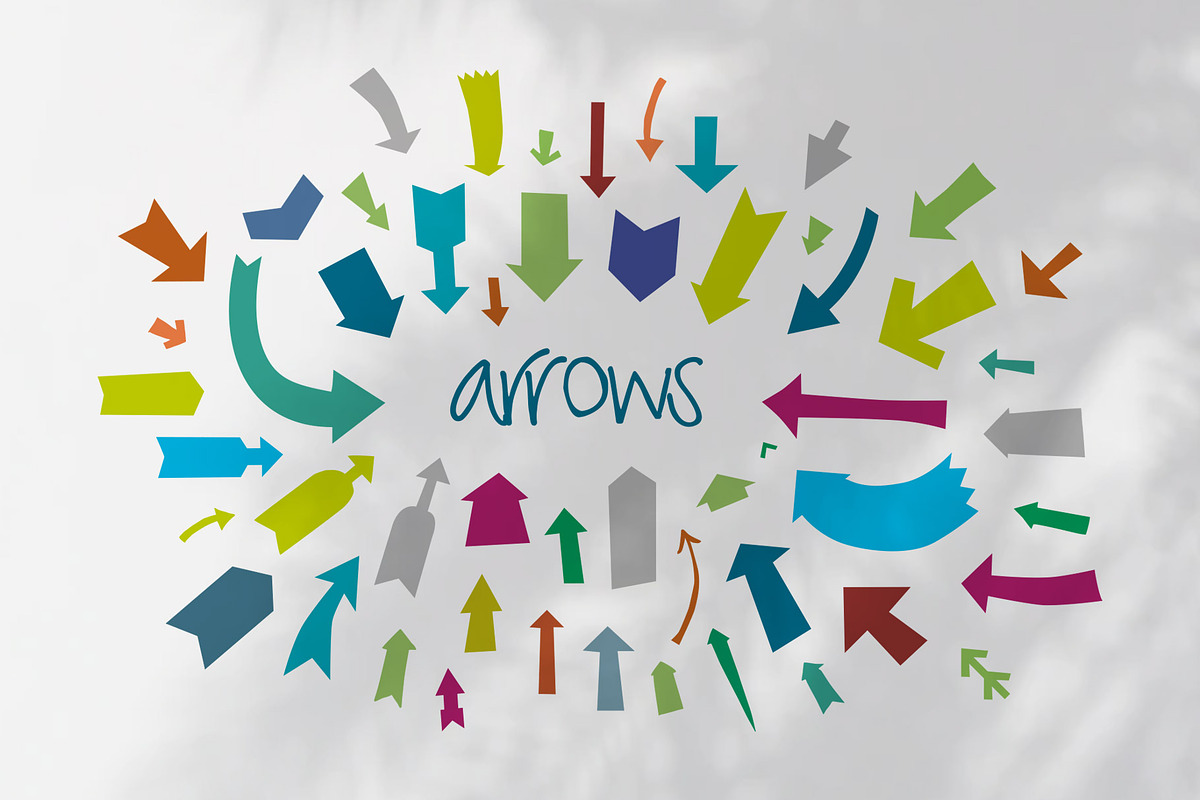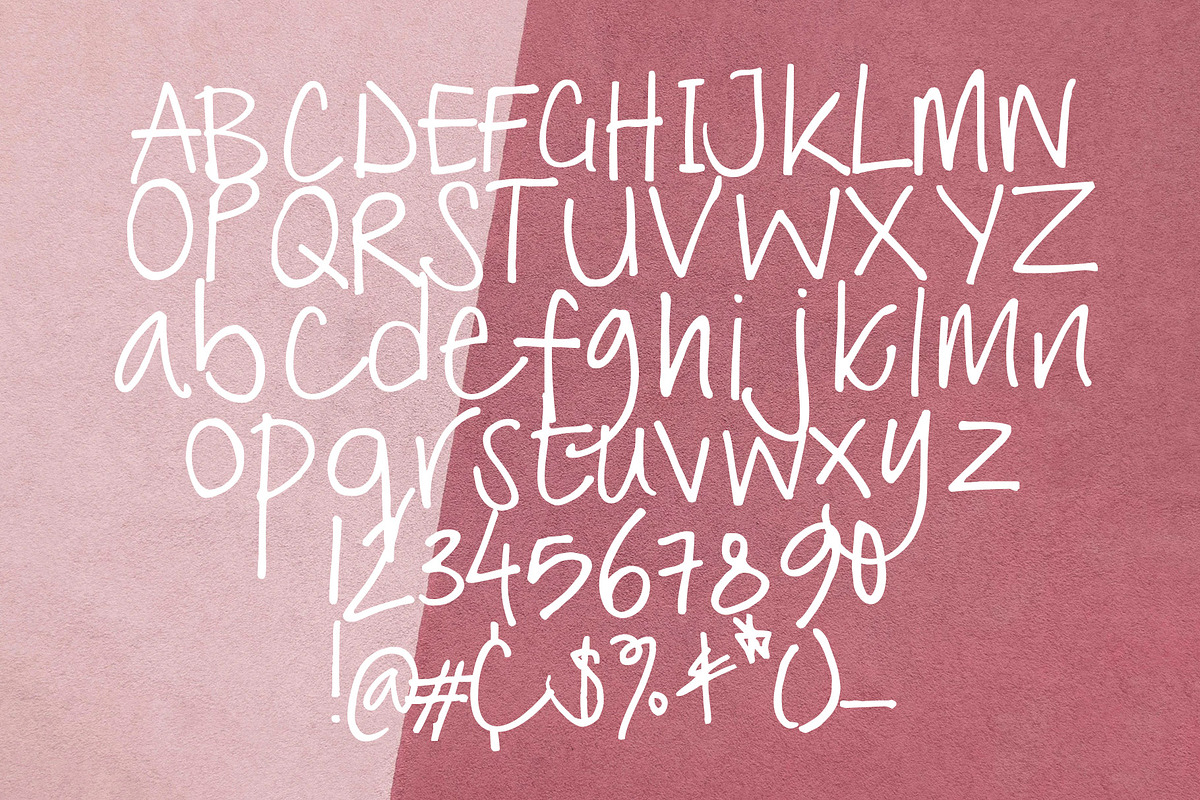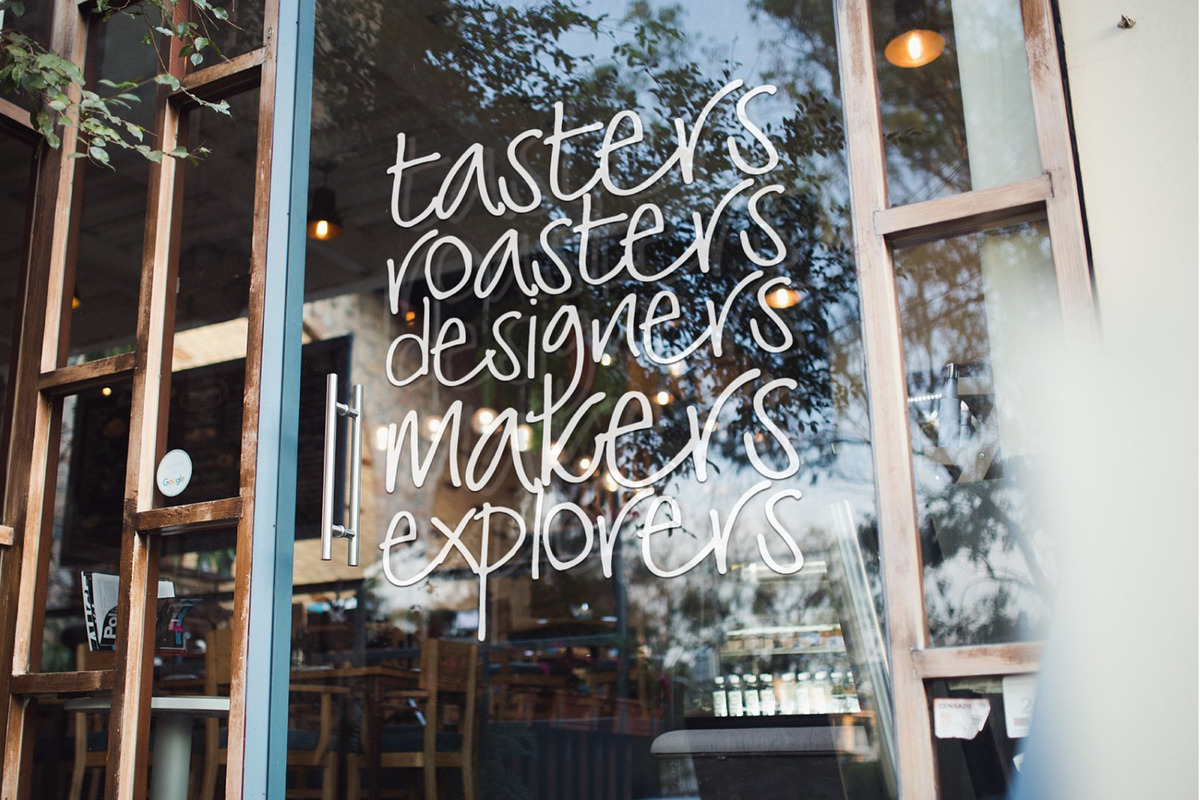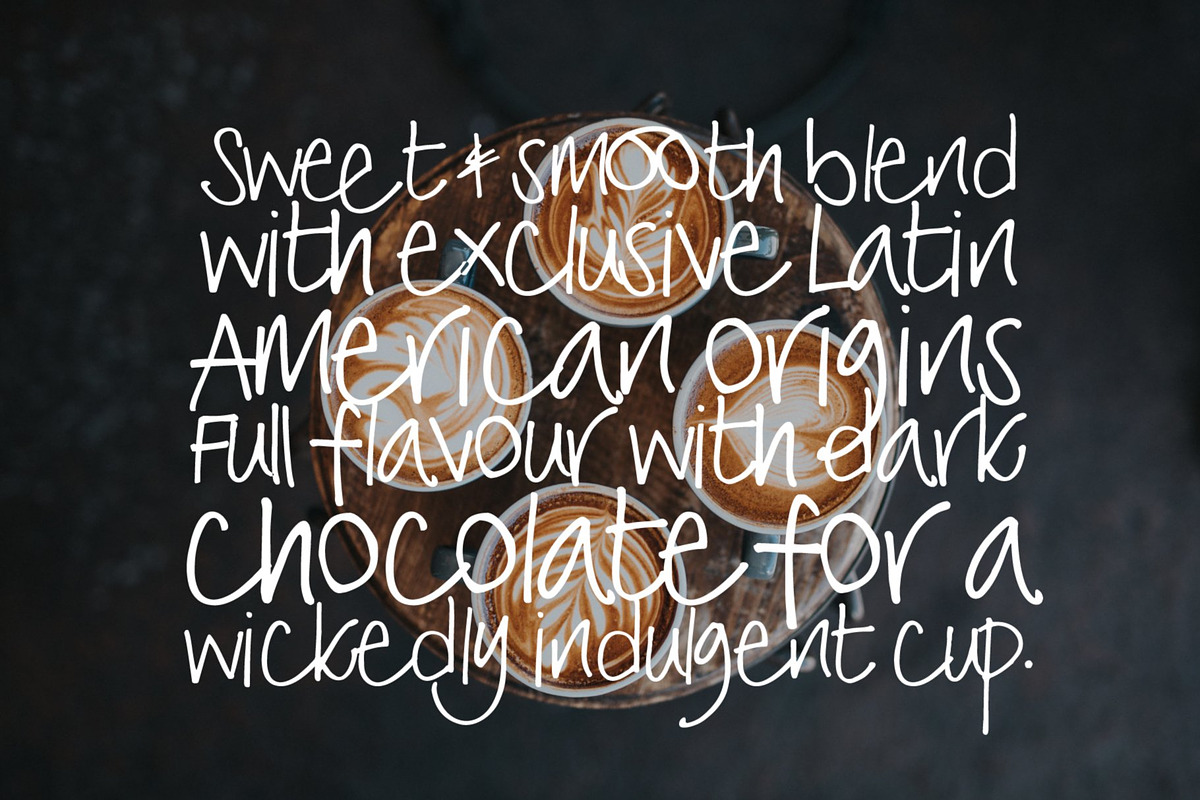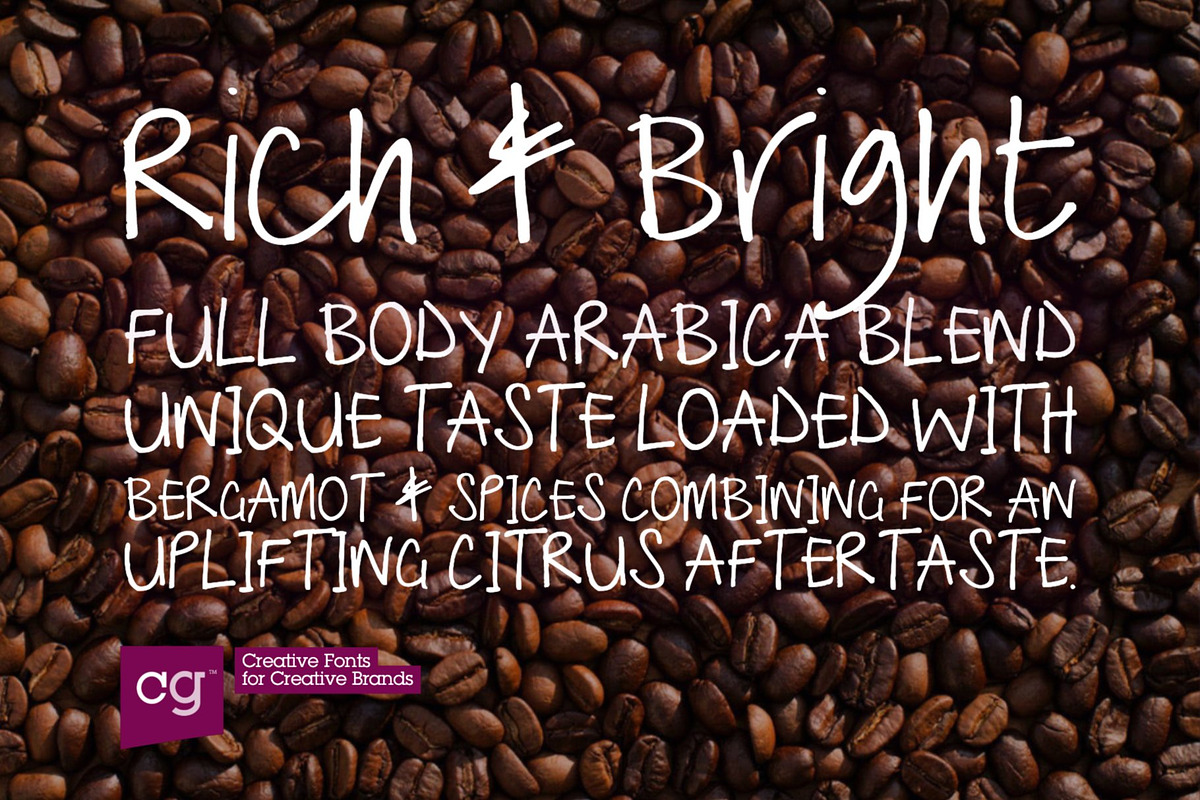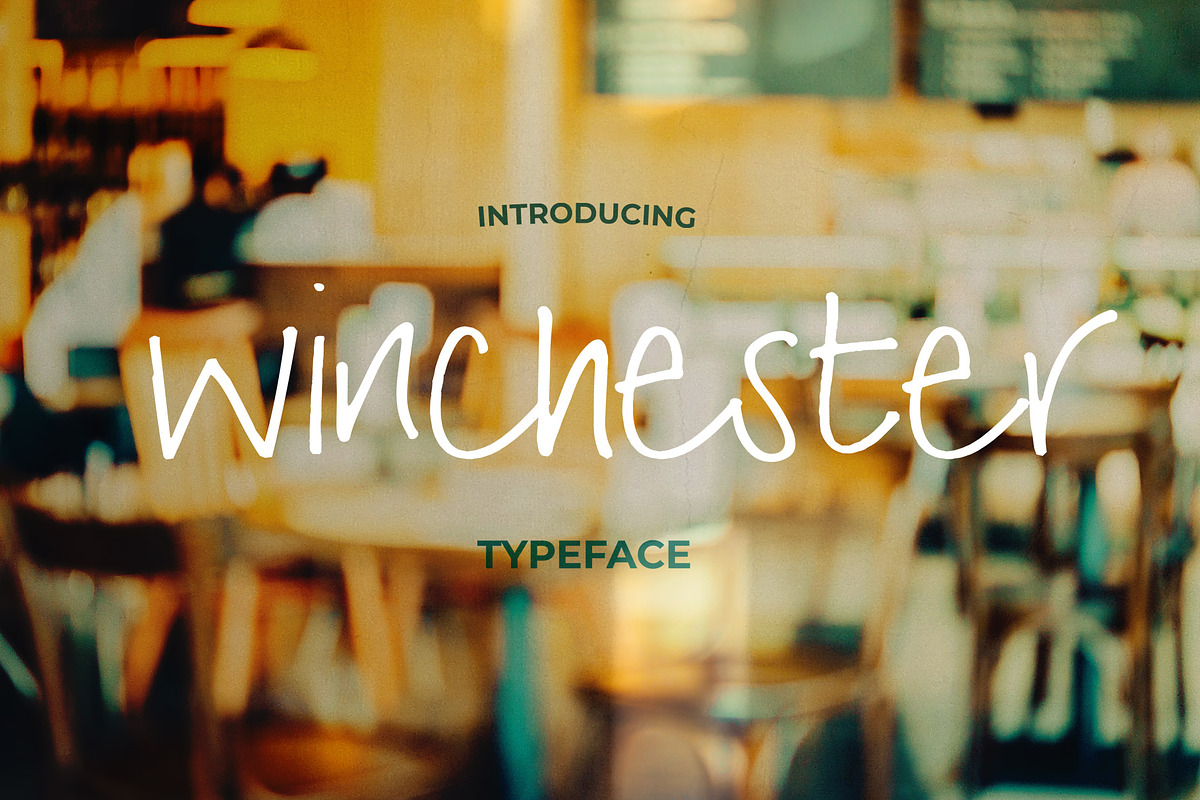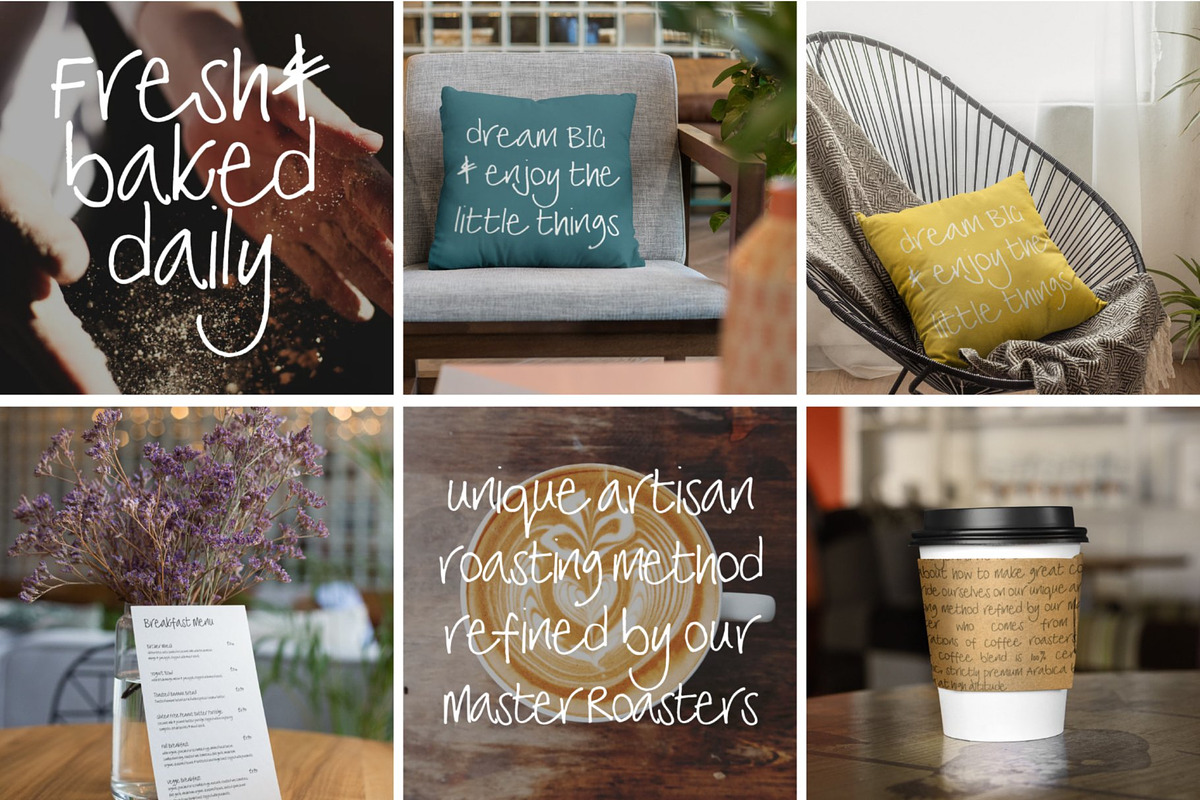
Winchester - Handwritten font
Winchester is a hand-drawn fun friendly font born from the handwriting of a mixture of friends. Lovingly honoured in every imperfection, this handwriting font offers itself to easy use in friendly brands, advertising and great for a personal touch. Used by Cafe’s, Restaurants, Coffee shops, and by those in the creative industry. Great for use as headings, banners, labels and for a bold statement. Classic and rough in style easy to use with many OpenType alternates.
Alternates, ligatures for a natural style and over 300 glyphs
- Classic and rough in style easy to use with many OpenType alternates.
- Winchester Regular
- Winchester Italic
- Winchester Bold